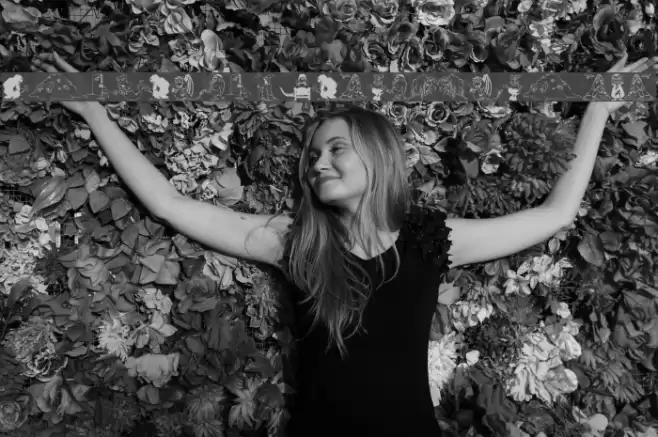
StrangersInTheNightTwo Font
StrangersInTheNightTwo Description
This is a highly decorative and whimsical font featuring a series of unique, cartoonish characters and creatures. Each letter and symbol is represented by a distinct illustration, ranging from ghosts and monsters to aliens and other fantastical beings. The style is playful and imaginative, with each character having its own personality and expression. The font is designed to be eye-catching and entertaining, making it suitable for creative and themed projects. The illustrations are detailed, with a mix of bold and fine lines, adding depth and character to each glyph.
A whimsical, cartoonish font featuring unique characters and creatures from Halloween fonts.
- Proposed Projects: Ideal for Halloween-themed designs, children's books, party invitations, and any project requiring a playful and imaginative touch.